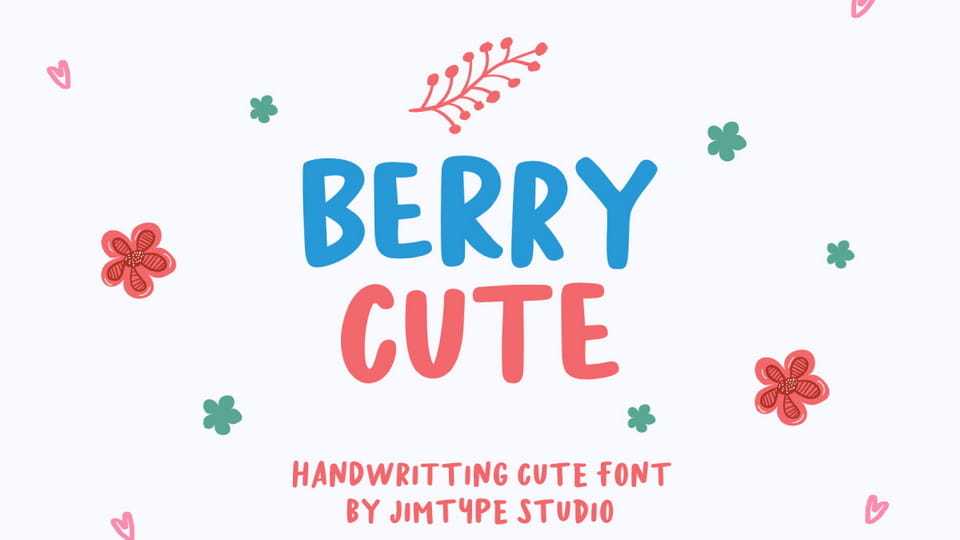
Download Berry Cute font, a handwritten font that’s perfect for your designs. A charming, messy handwritten font that adds a natural touch to your designs, yet still feels sophisticated.